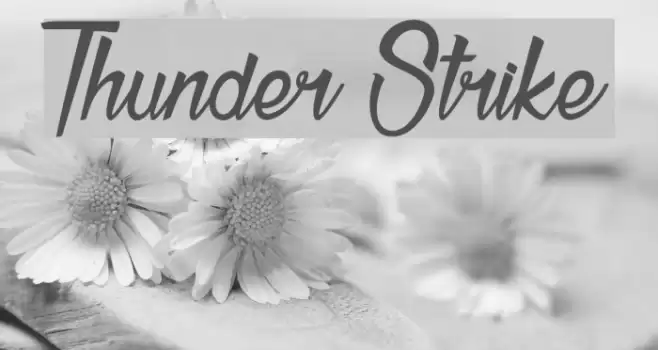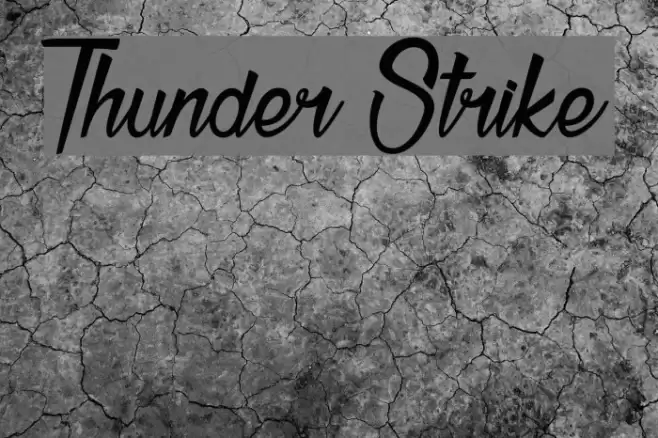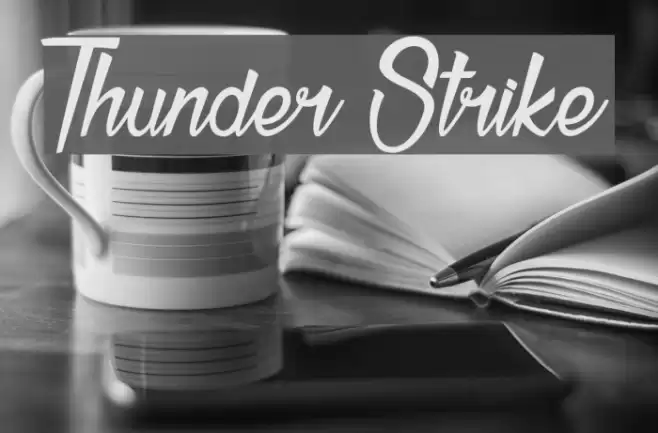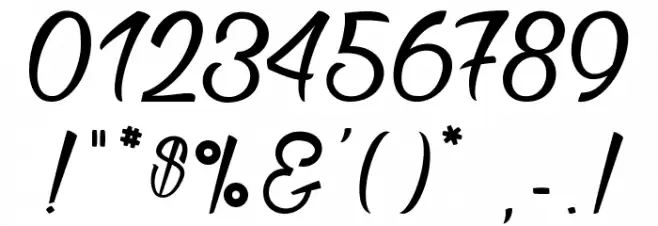
Thunder Strike Font
Thunder Strike Description
This font features a dynamic and energetic style, characterized by its bold and slightly italicized letterforms. The uppercase letters exhibit a sharp, angular design with a slight slant, giving them a sense of motion and urgency. The lowercase letters maintain a consistent style, with smooth curves and a flowing script-like appearance. The numerals are bold and clear, matching the overall aesthetic of the font. Special characters are well-integrated, maintaining the font's cohesive look. This font is ideal for projects that require a sense of excitement and movement.
A bold, italicized font with dynamic, angular uppercase and flowing lowercase letters from Uncategorized fonts.